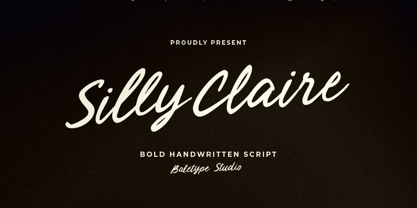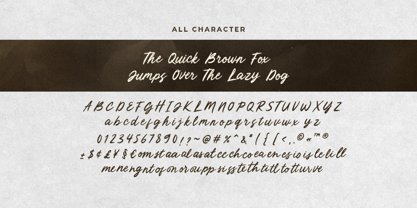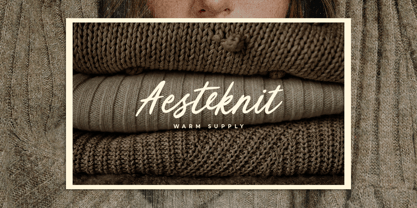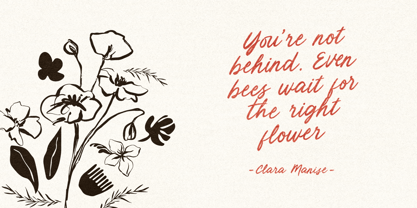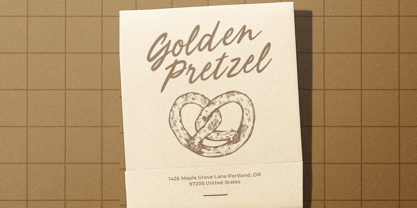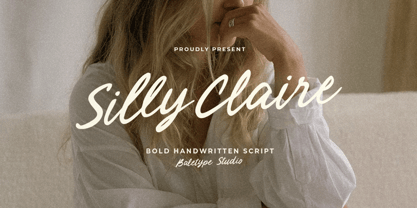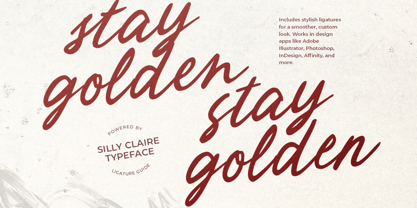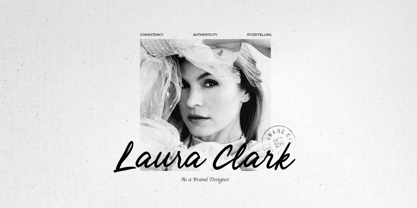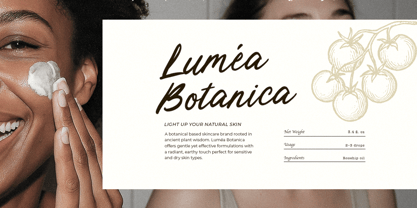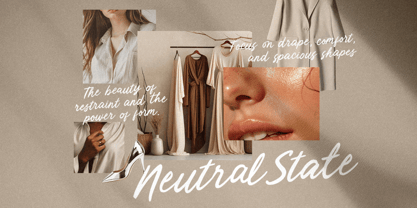
Silly Claire
by Bale Type
The Silly Claire Font Family was designed by Liwa Shidqy and published by Bale Type. Silly Claire contains 1 styles.
Silly Claire is a bold script with ligatures that will make it more looks naturally handwritten. You can use this font for any purposes such as quotes, branding, wedding invitations or logotype. This font also support multi language.